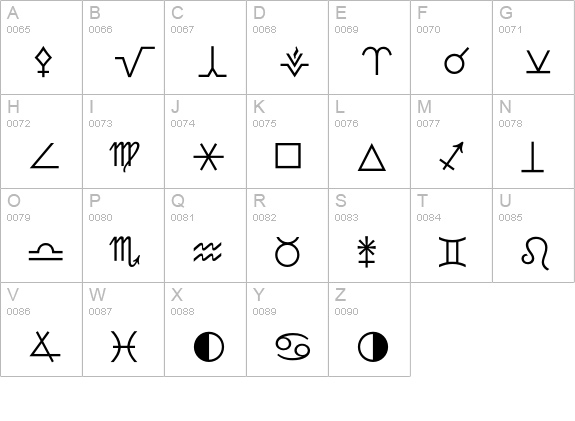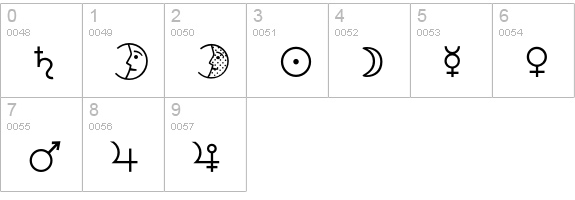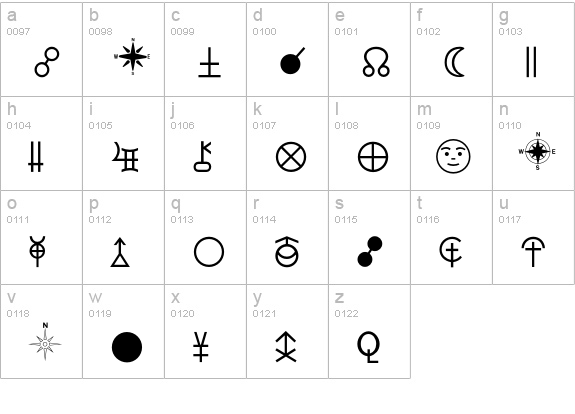
AstrologyP02 Font Details
AstrologyP02 is a captivating and mystical font that perfectly captures the essence of the cosmos. With its intricate celestial-inspired design, this font is sure to add a touch of magic to any project. The elegant curves and intricate details of AstrologyP02 make it a versatile choice for a wide range of design projects, from branding to stationery to social media graphics. What sets AstrologyP02 apart is its ethereal quality, reminiscent of ancient star maps and mystical symbols. This font is perfect for adding a touch of the mystical and mysterious to your designs. Whether you're creating a poster for a spiritual event or designing a logo for a new age business, AstrologyP02 is sure to make a statement. Best of all, AstrologyP02 is freely available to download at FontsMarket.com. So why wait? Add a touch of magic to your designs today with AstrologyP02 font.